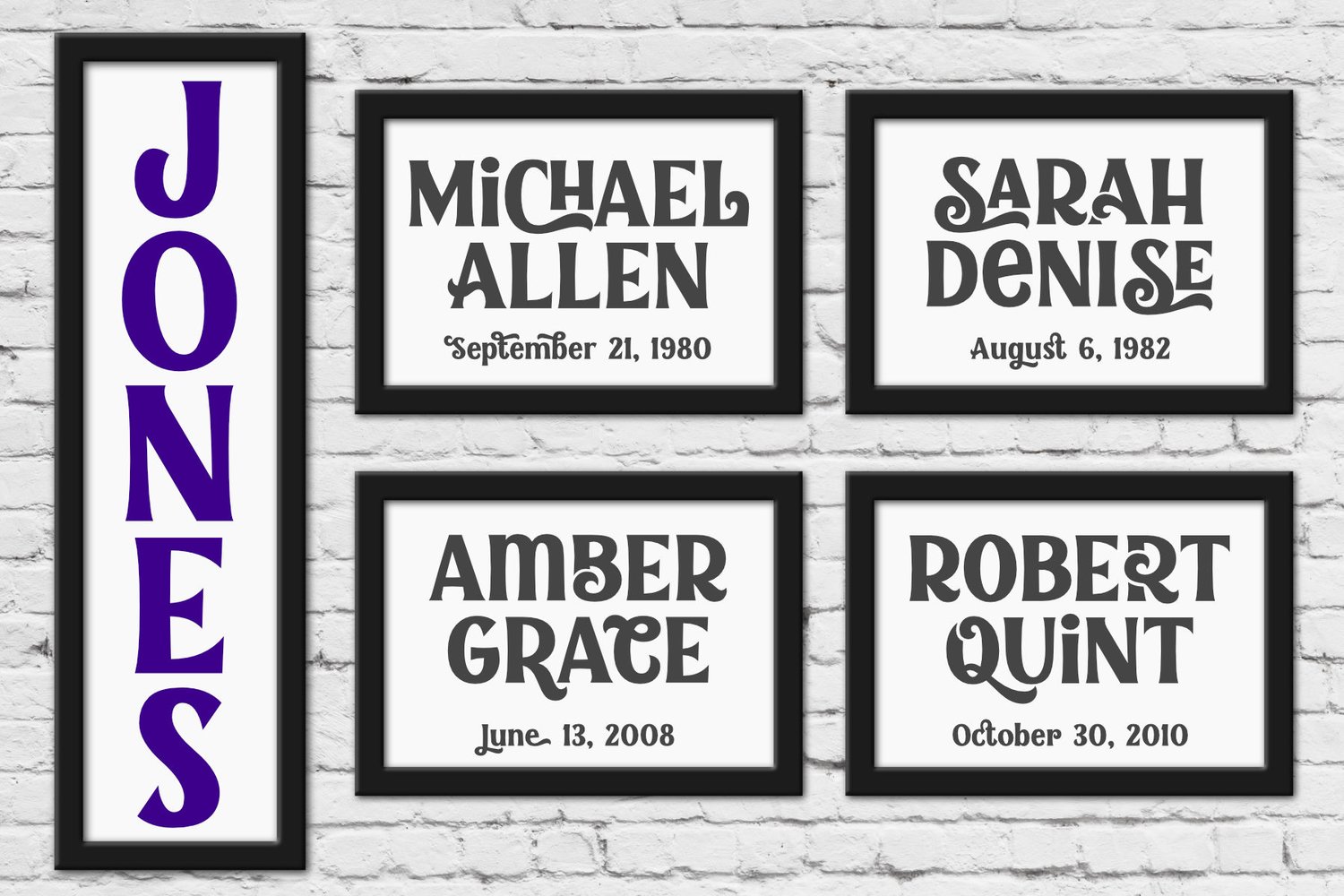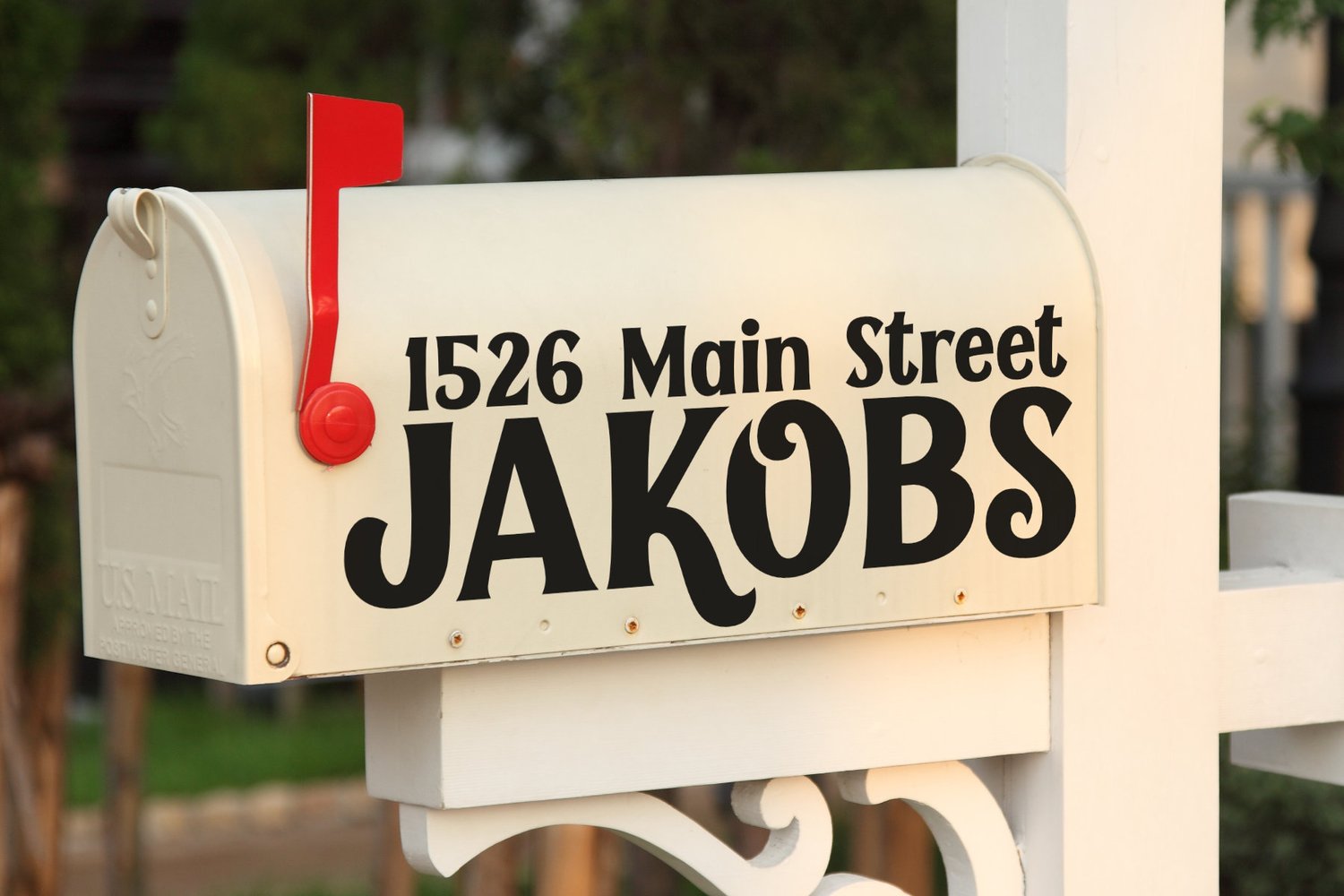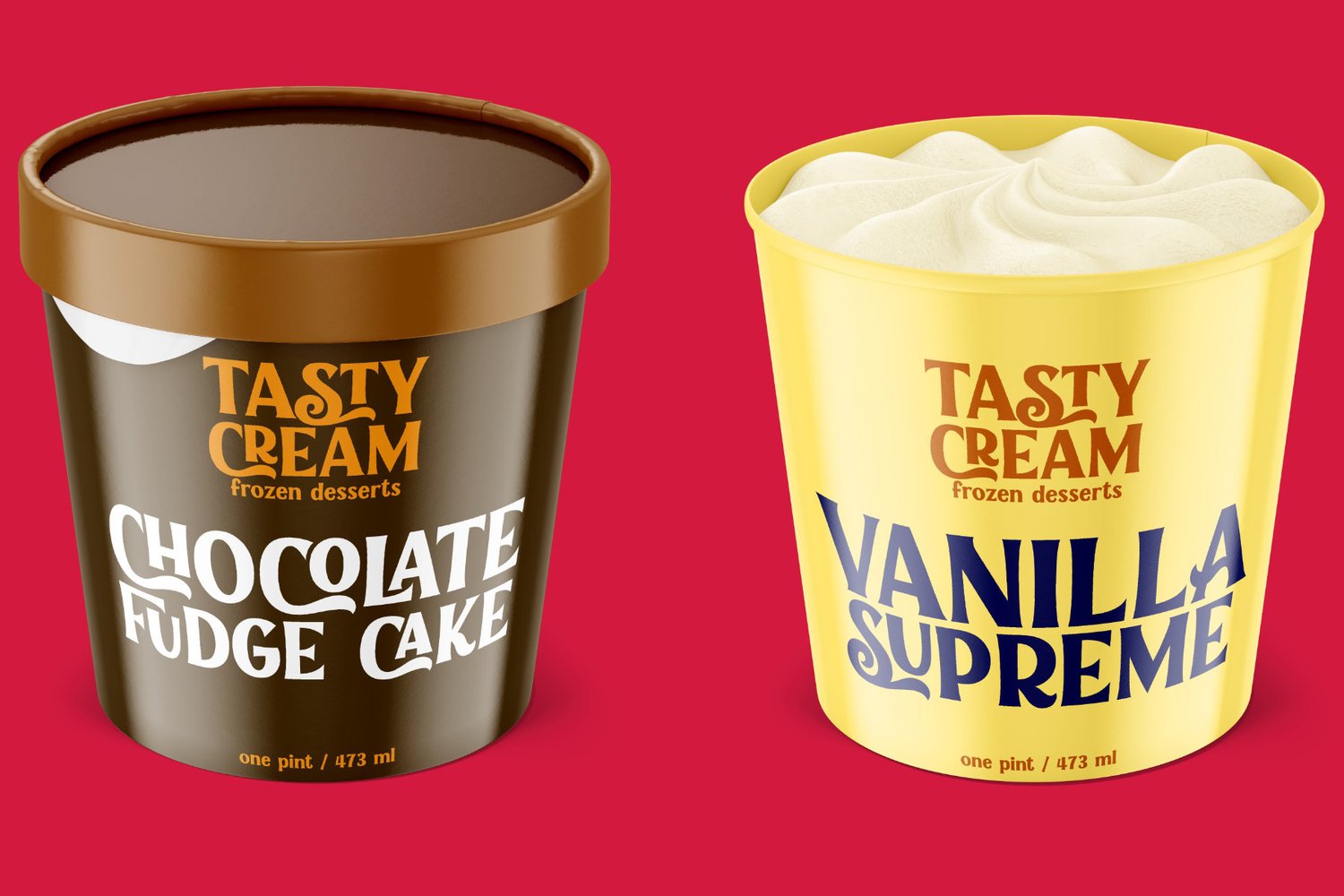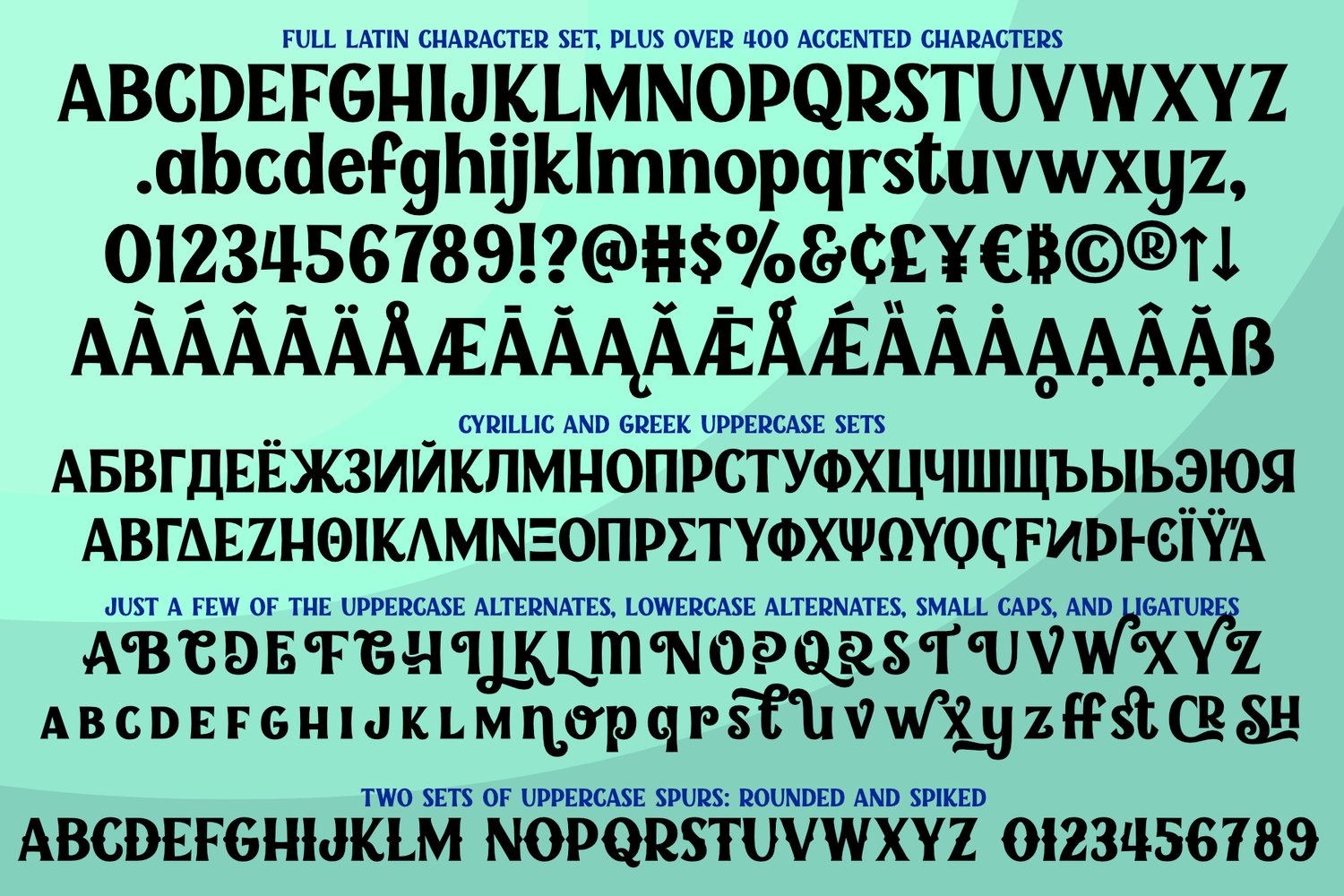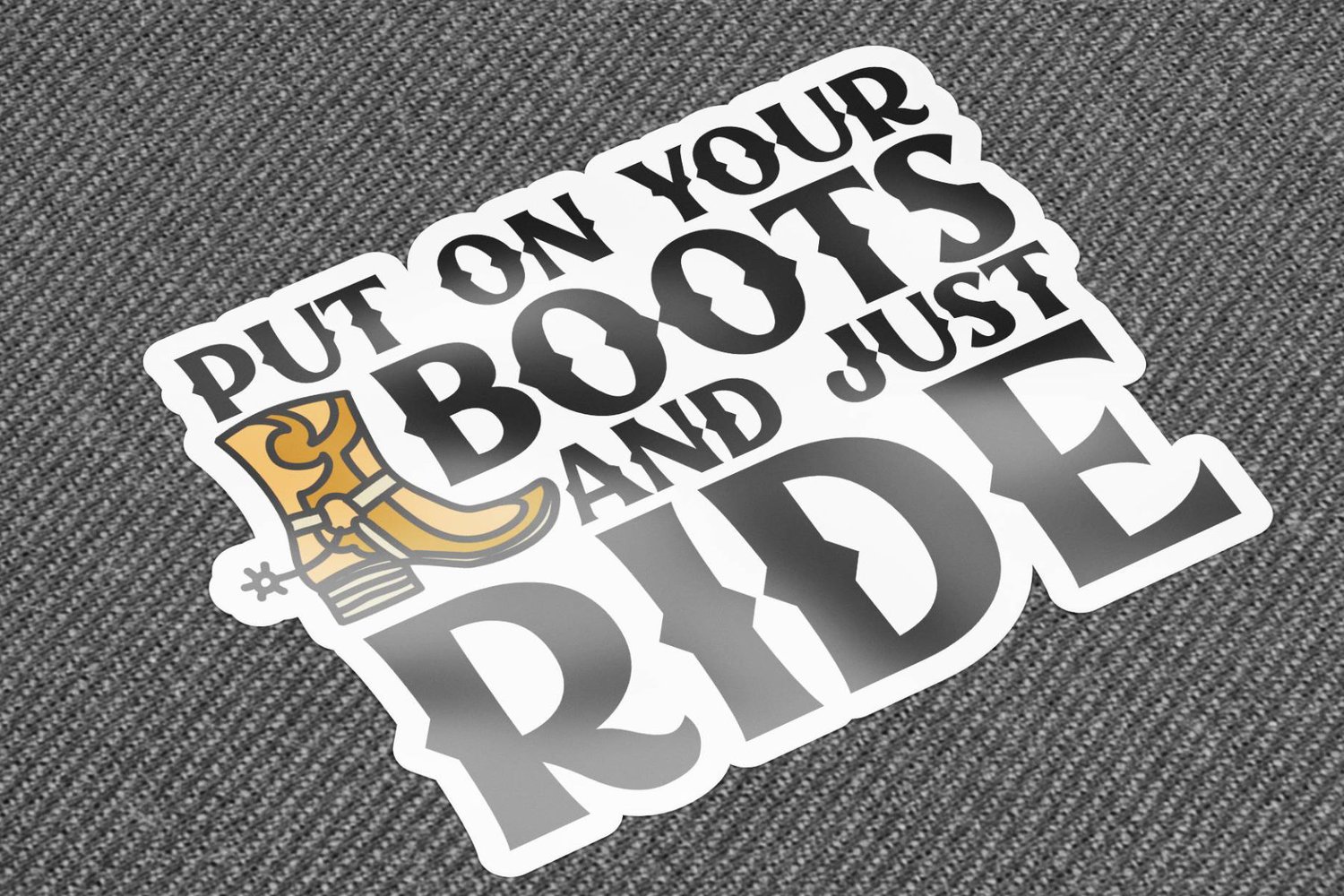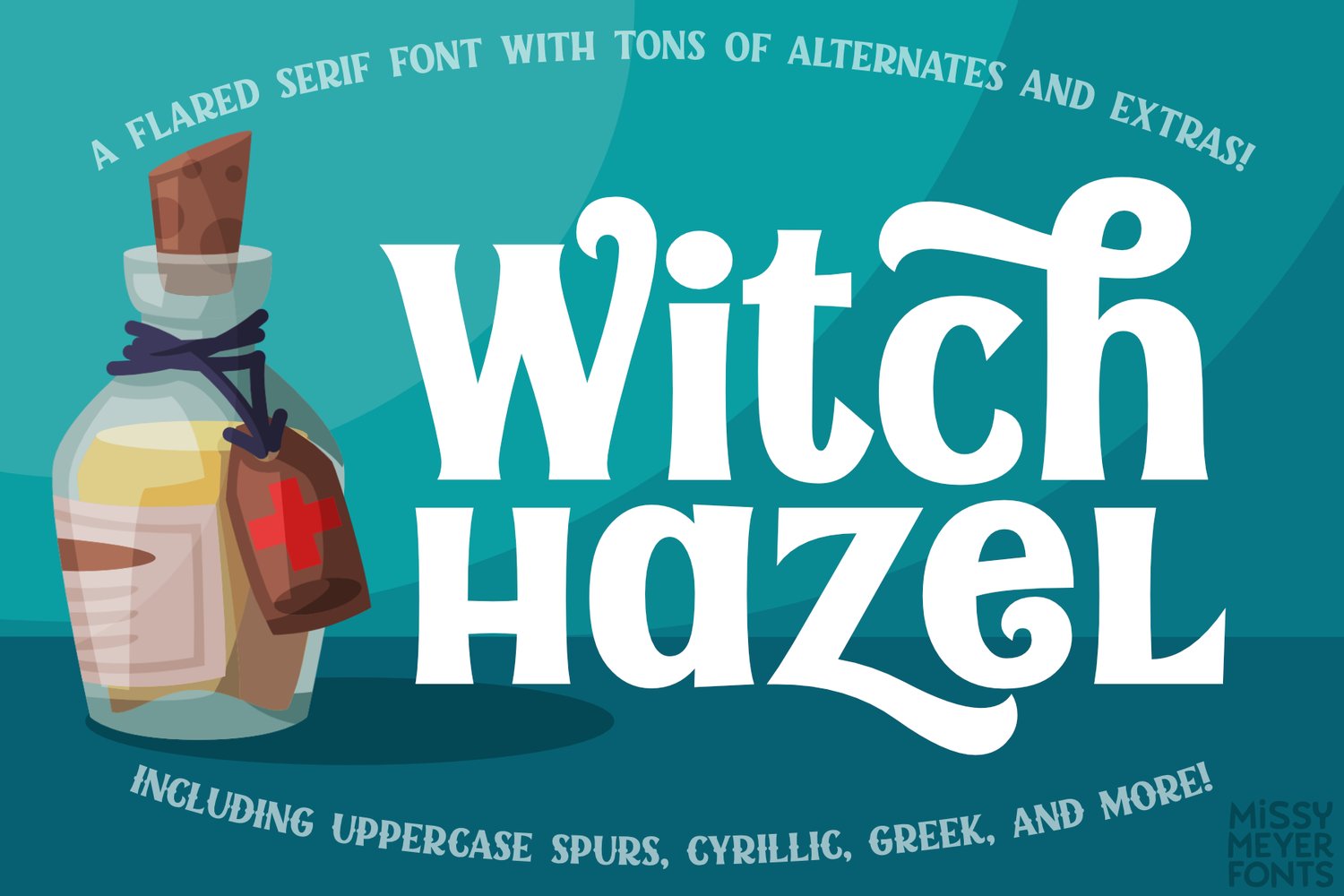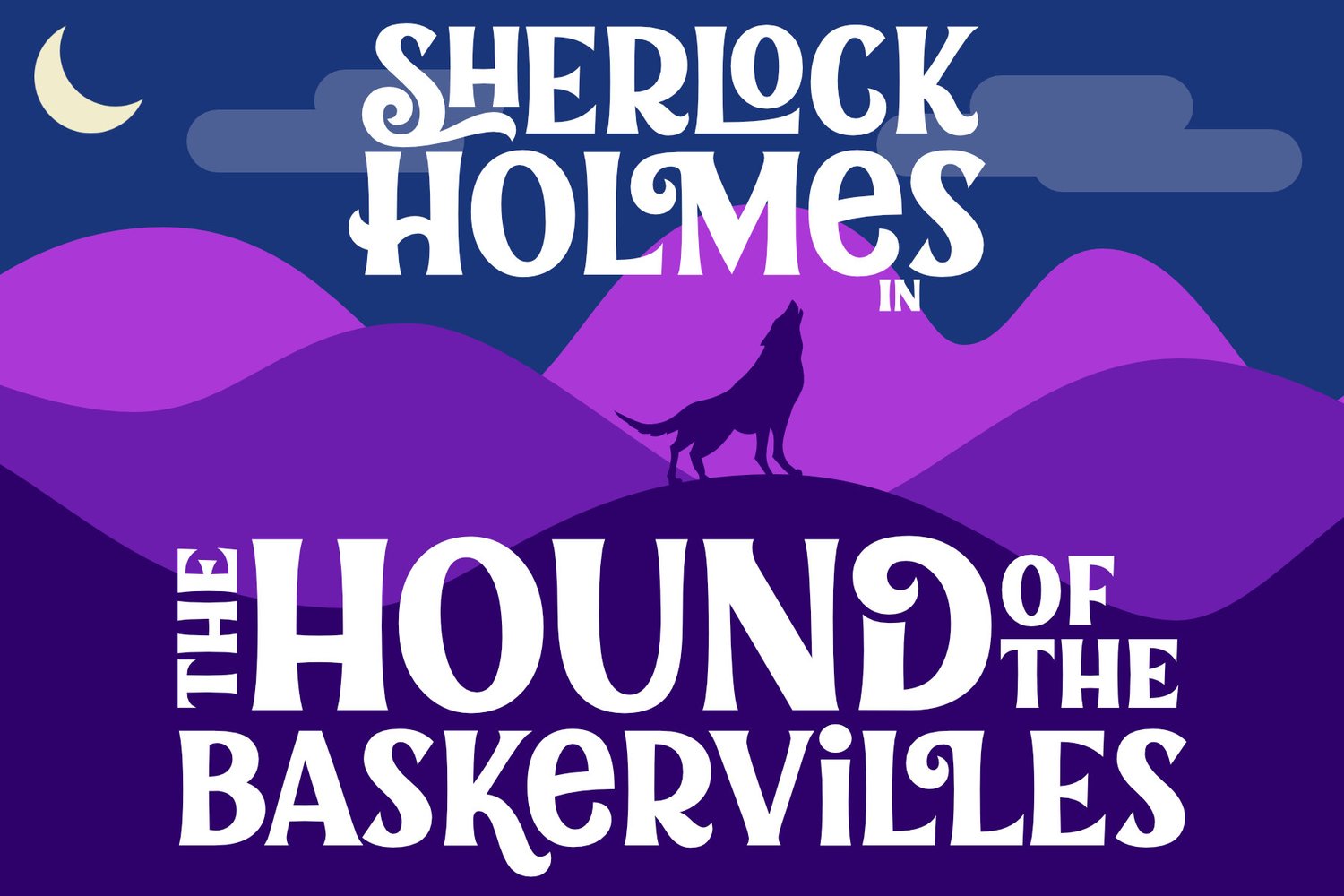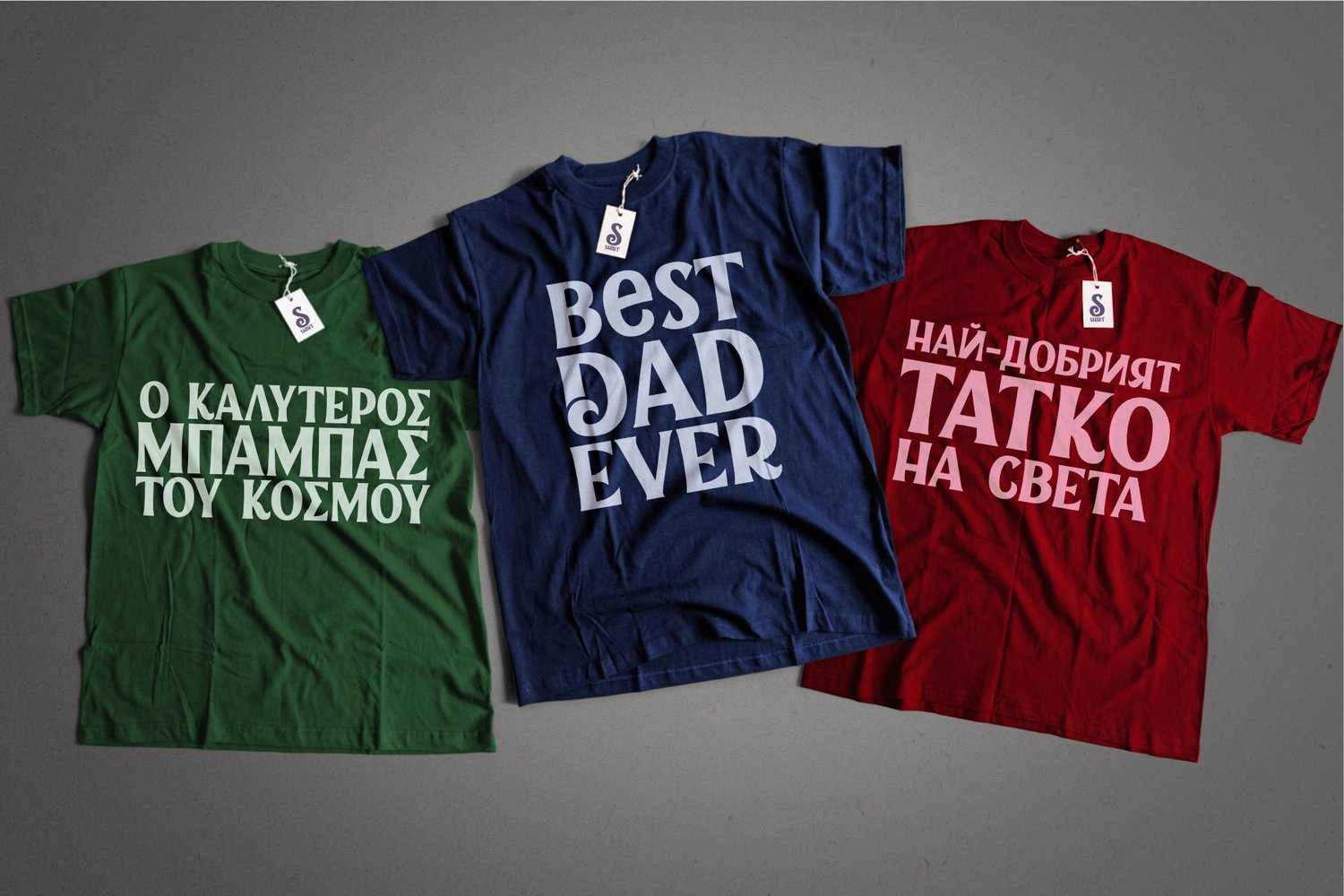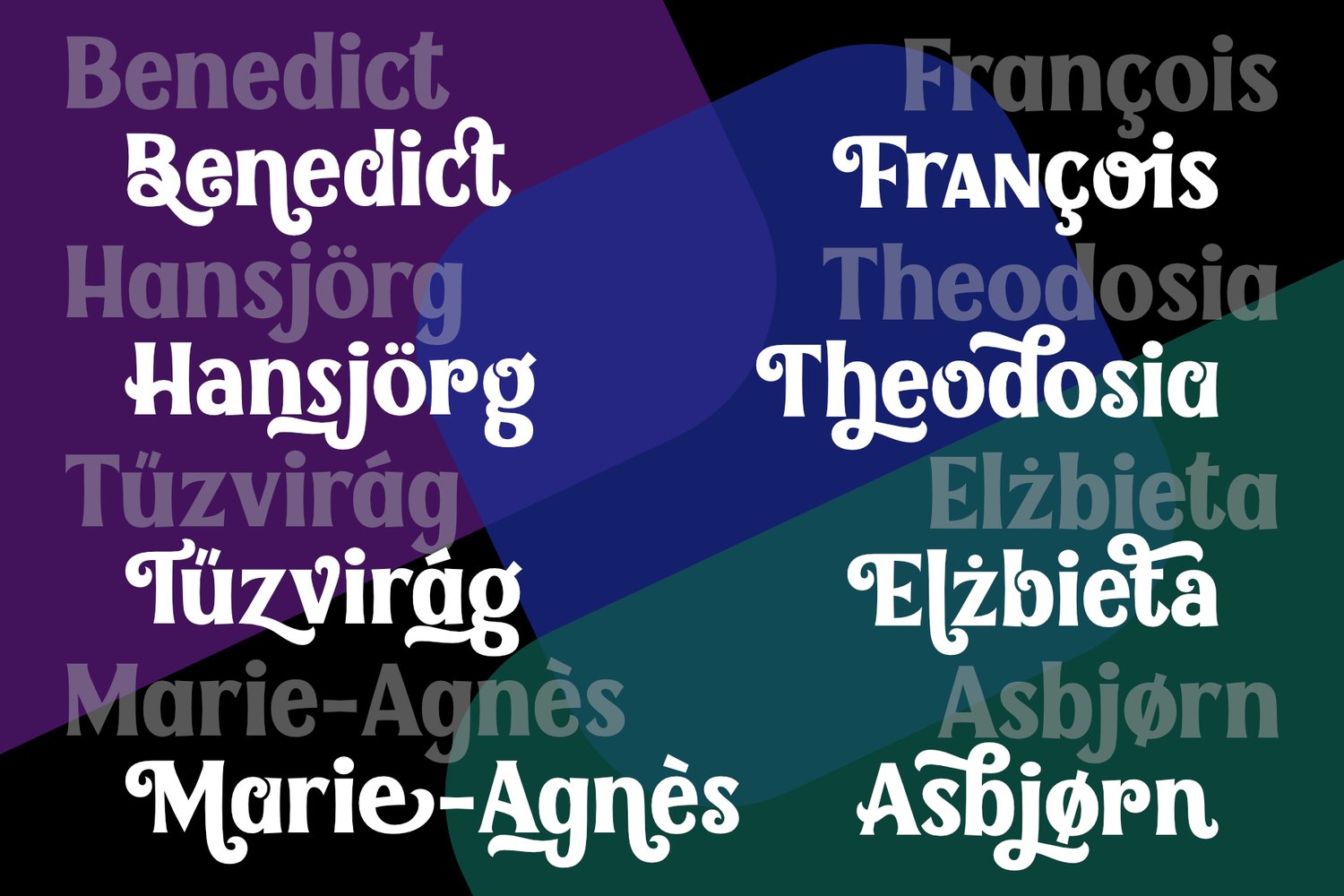
Witch Hazel
I've been working on Witch Hazel for months; just when I think it's done, I come up with a few more alternates that I'd like to include! I'm finally done, clocking in at over 1150 glyphs -- it's finally time to set it free so you can use it!
The slight flared serifs allow Witch Hazel to bridge the vintage and the modern; it's great for pirates and fairy tales, but also great for logos and branding! And with a group of over 300 alternates, ligatures, and extras, you can make a fun design for any holiday, from Christmas to Halloween to Valentine's Day!
Witch Hazel includes:
- The usual suspects: A-Z, a-z, 0-9, and tons of punctuation;
- A full set of Greek uppercase letters;
- A full set of Cyrillic uppercase letters;
- Over 430 extended Latin characters for language support;
- A set of small caps;
- Between 1-8 decorative alternates for all letters A-Z and a-z;
- Pointy spurs versions of the numbers and uppercase letters;
- Rounded spurs versions of the numbers and uppercase letters;
- And 40 two-letter ligatures!